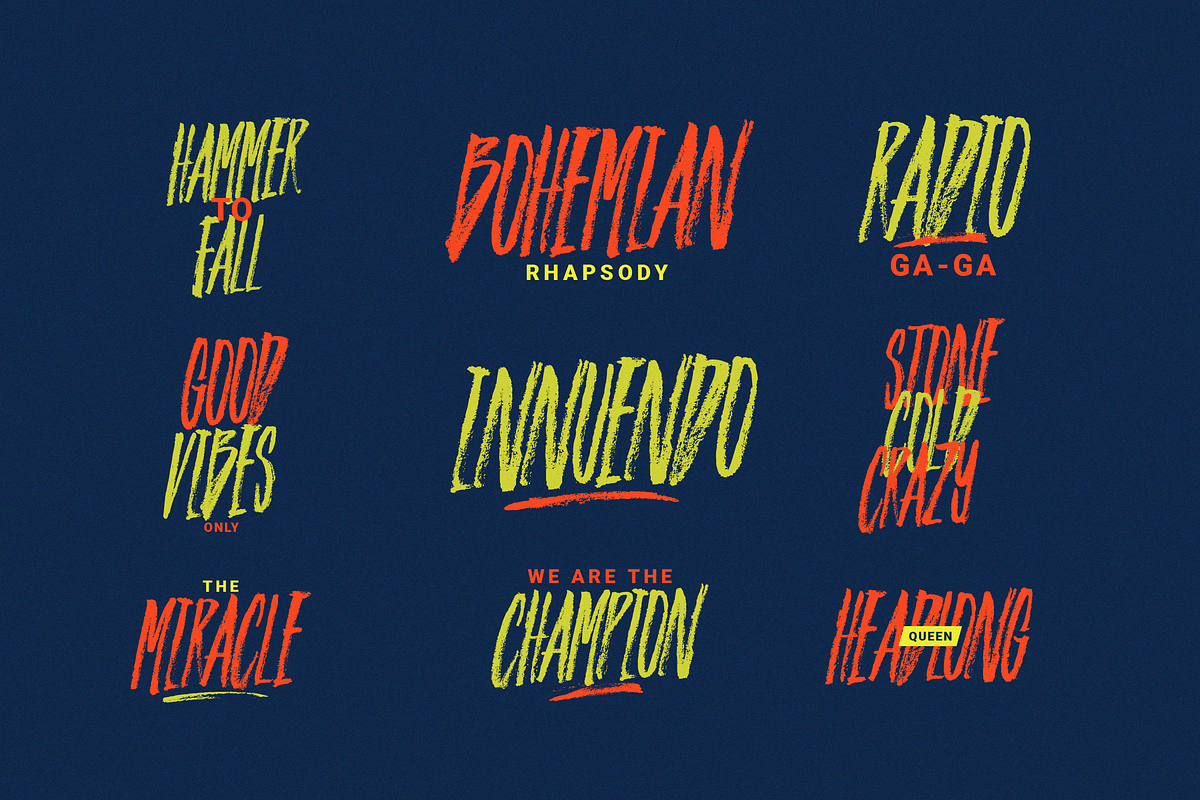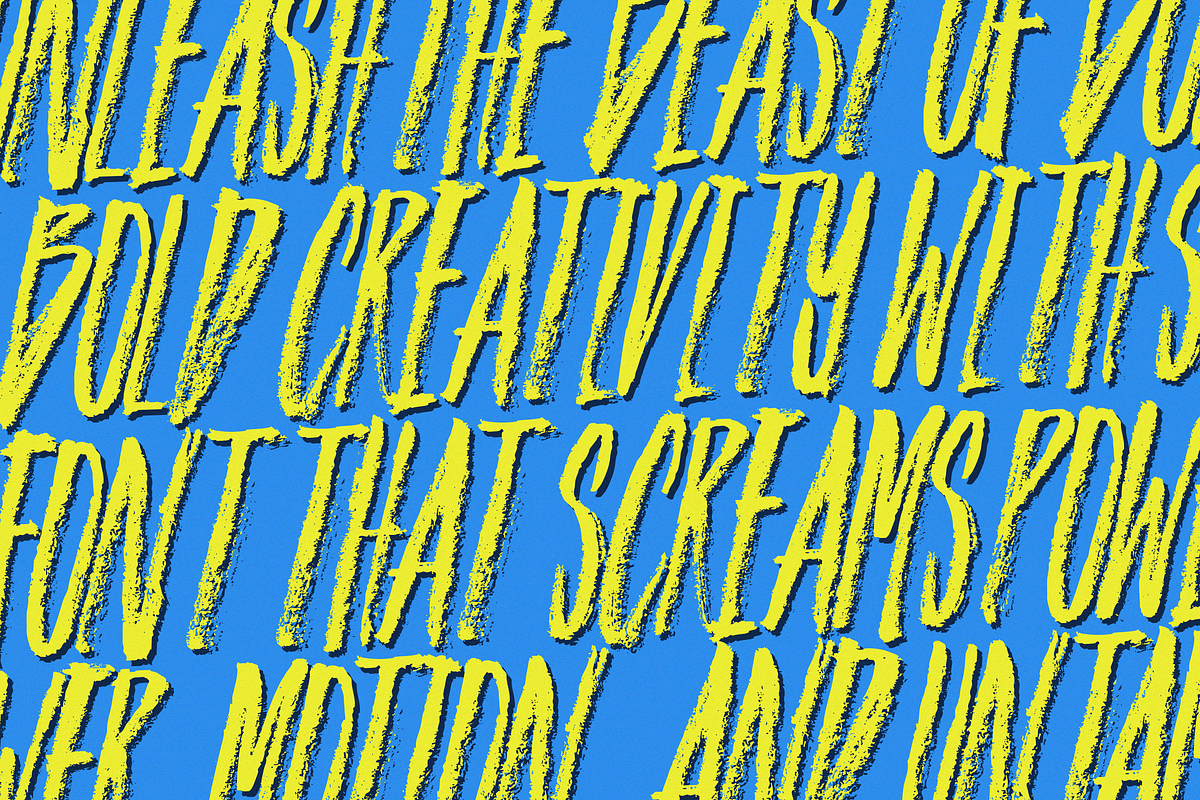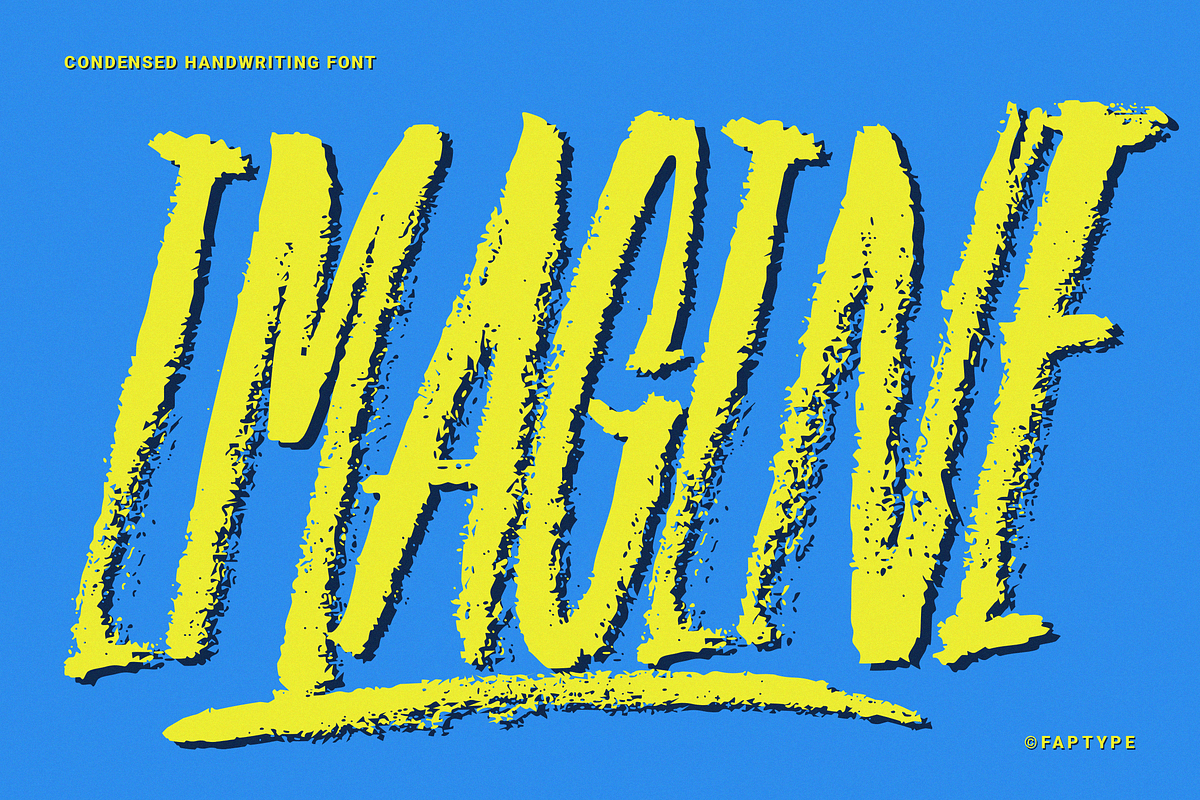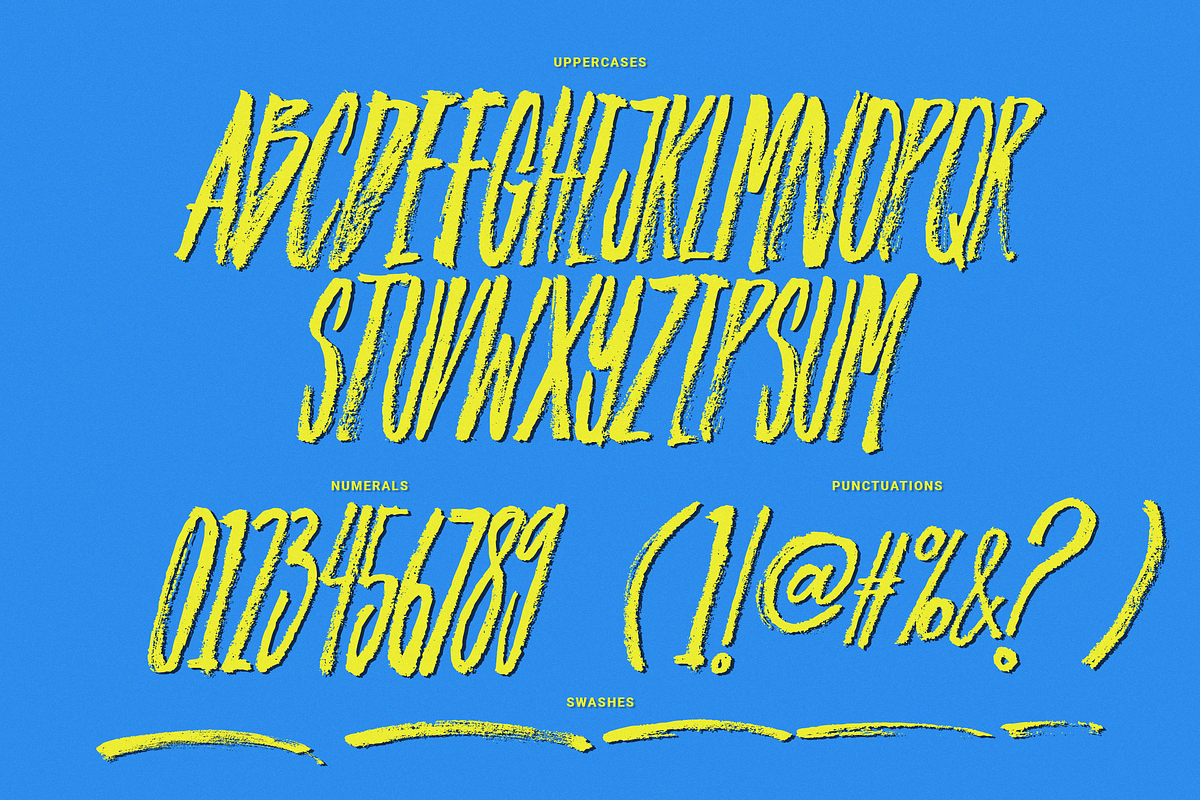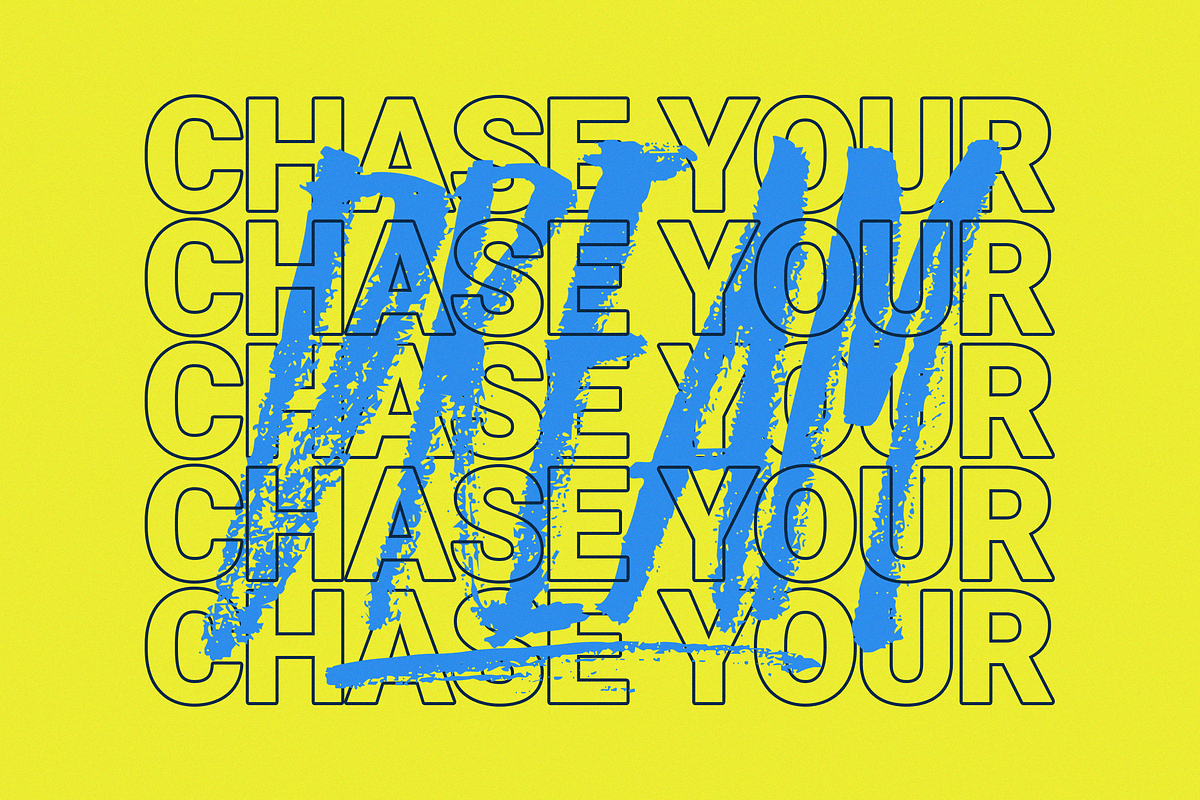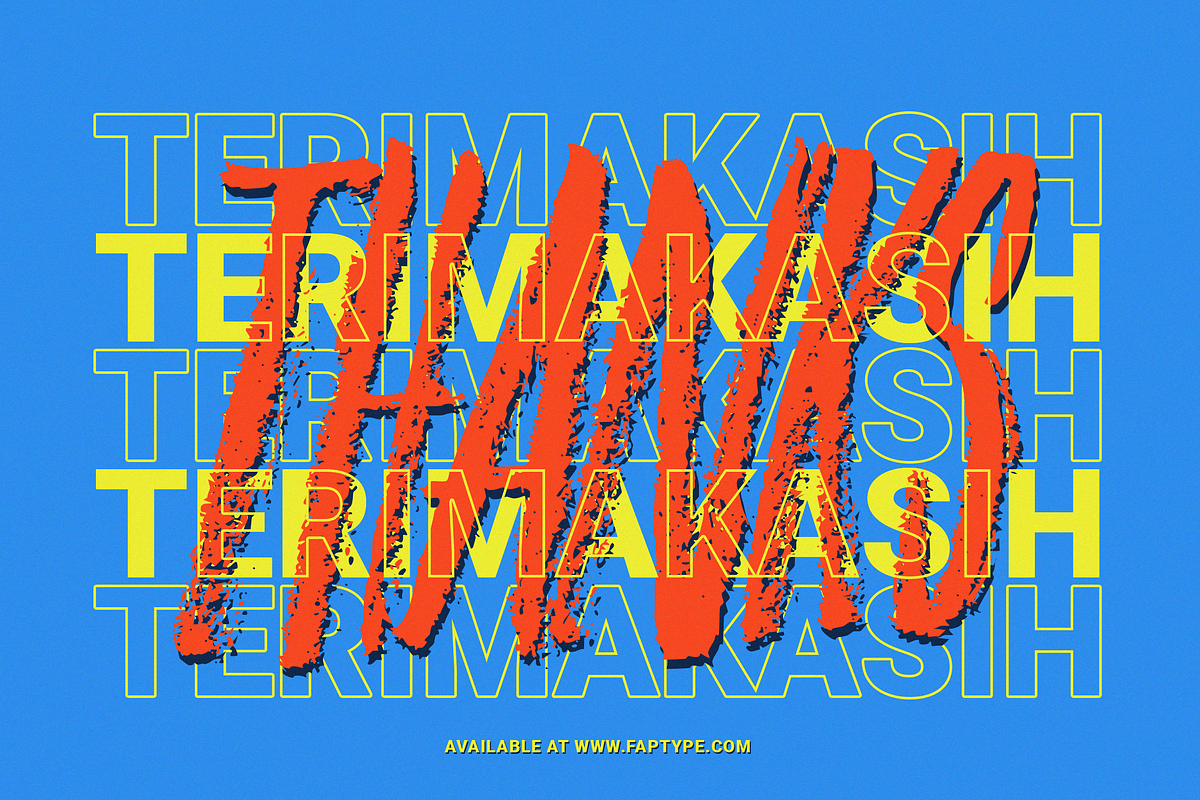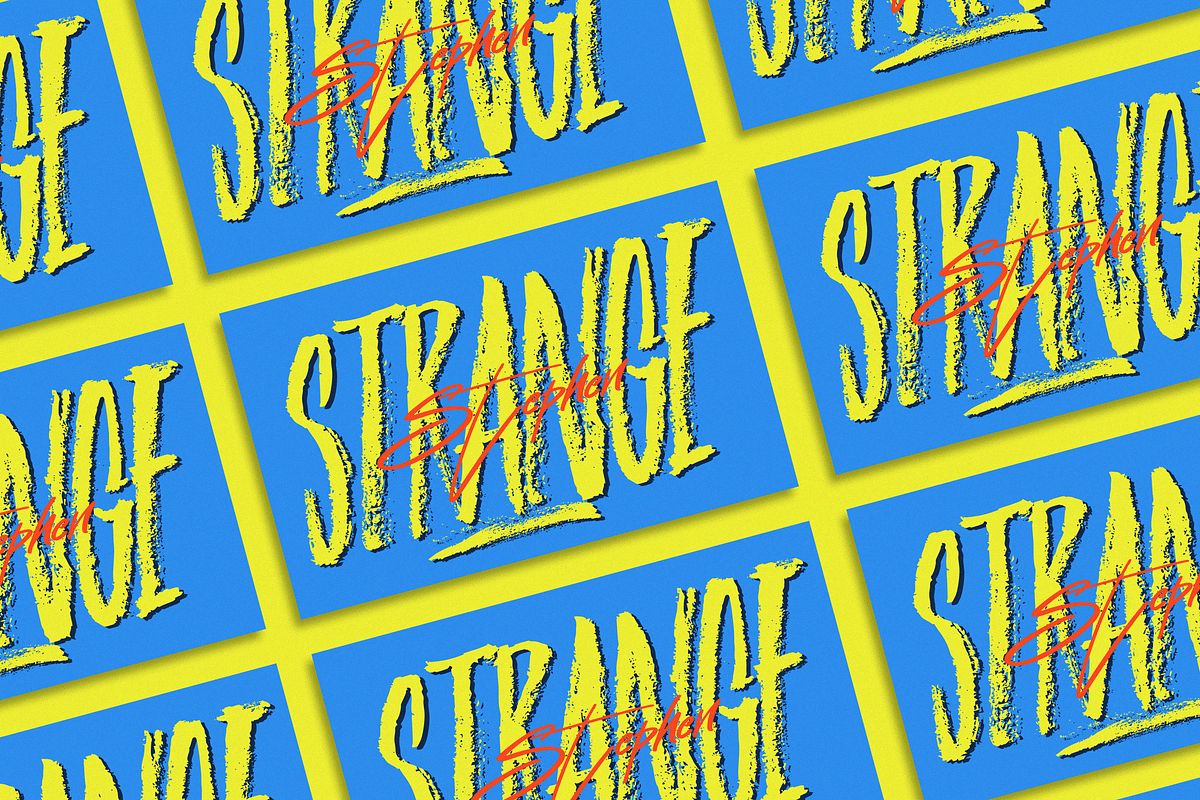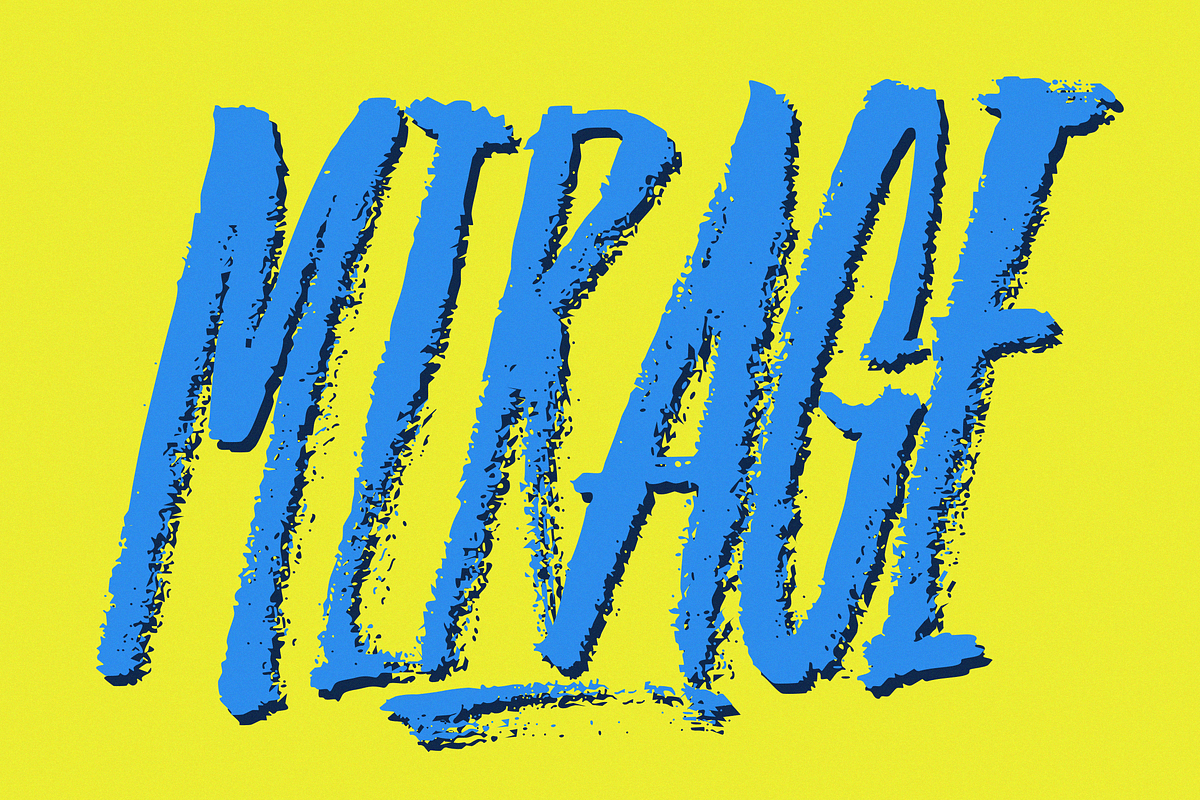
Imagine | Condensed Handwriting Font
Step into a world where imagination meets raw intensity.
Introducing Imagine, a handcrafted condensed brush font that dares to defy the ordinary. Born from the bristles of a Kuretake dry brush and meticulously scanned stroke by stroke, this font captures the fierce energy of hand-lettering in its most primal form. Every letter bleeds authenticity — wild, imperfect, and unapologetically bold.
Crafted for creators who crave more than just clean lines and sterile shapes, Imagine delivers uppercase-only characters packed with attitude. Each glyph is infused with expressive brush textures that scream movement, emotion, and rebellion. Whether you’re designing a band poster, streetwear brand, movie title, or eye-grabbing editorial layout, this font doesn’t whisper — it roars.
Imagine isn’t just a font — it’s a force of creative nature. With additional swashes, rich punctuation, symbols, and multilingual support, it’s fully armed for your boldest design ventures. The condensed form lets you maximize space while still keeping that raw, untamed brush aesthetic alive in every inch.
This is not a font for the faint-hearted. This is a tool for visionaries, rebels, and those who dare to create something unforgettable. Let the brush speak for you. Let the world hear your imagination.
Imagine Features:
- A full set of Uppercase and Lowercase
- Numbers and Punctuation
- Multilingual Language Support
- OpenType Features
- +252 Total Glyphs